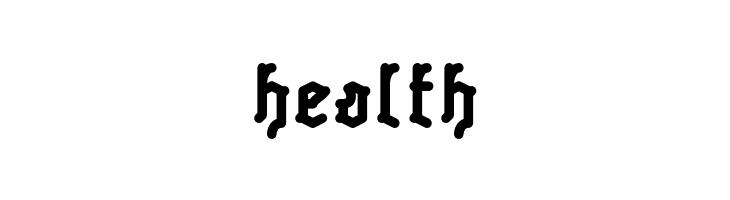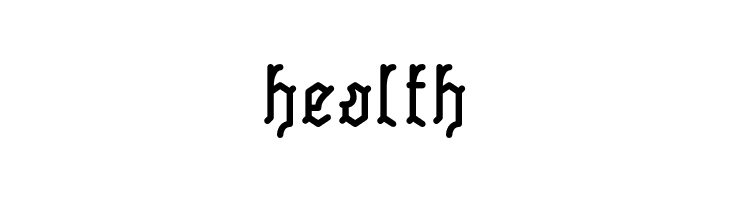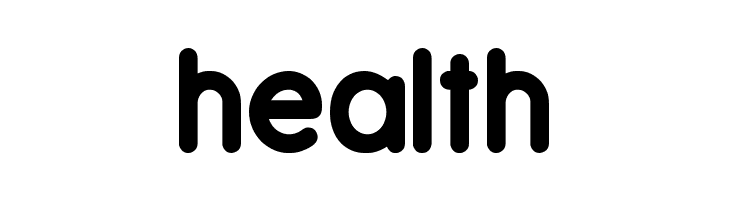
SantEliaRoughAlt-BoldThrDMO Font
A bold, textured script font with a distressed, vintage appearance.
Coverface SE Font
A rounded, bold font with a playful yet professional style.
Playfair Display SC SemiBold Font
A classic serif font with high contrast and elegant, sharp serifs.
Playfair Display SC Font
A classic serif font with high contrast and elegant serifs.
SantEliaRough-Line Font
A hand-drawn script font with a rough, textured line quality and flowing connections.
Muffin Font
A playful, bold font with rounded, thick letterforms and a friendly appearance.
Merriweather Sans Bold Font
A bold, modern sans-serif font with excellent legibility and balance.
QumpellkaNo12 Font
An elegant, high-contrast script font with flowing, cursive-like strokes.
Coverface SE Light Font
A bold, rounded font with smooth curves and uniform strokes.
Amertha PERSONAL USE ONLY Font
A bold, expressive script font with fluid, cursive strokes and elegant style.
SantEliaRough-LineTwo Font
A hand-drawn, cursive font with a rough, sketch-like appearance.
IM_FELL_English_PRO_Roman Font
A classic serif font with a historical and handcrafted feel.
Coverface Light SE Font
A bold, rounded font with smooth curves and a modern, friendly appearance.
VDS Font
A modern, rounded font with uniform stroke width and excellent readability.
IM_FELL_English_PRO_Italic Font
A classic, italicized font with ornate flourishes and a traditional English calligraphy style.
VDS Bold Font
A bold, rounded sans-serif font with a modern and friendly appearance.
Signato Regular Font
An elegant, cursive script font with fluid, connected characters.
SantEliaRough-LineThr Font
A cursive, hand-drawn font with a rough, artistic style.
Royal Pain Font
A distressed, vintage-style font with a grunge aesthetic.